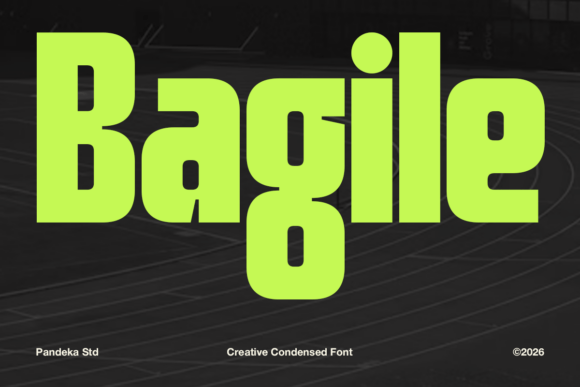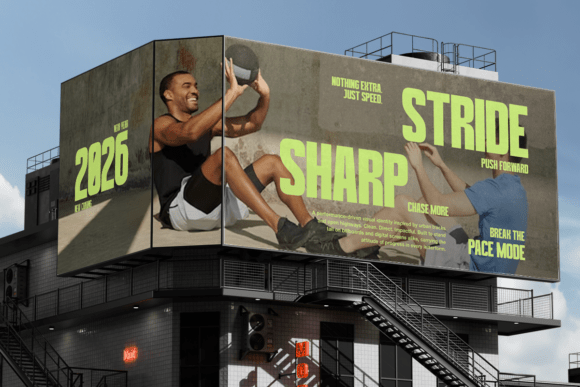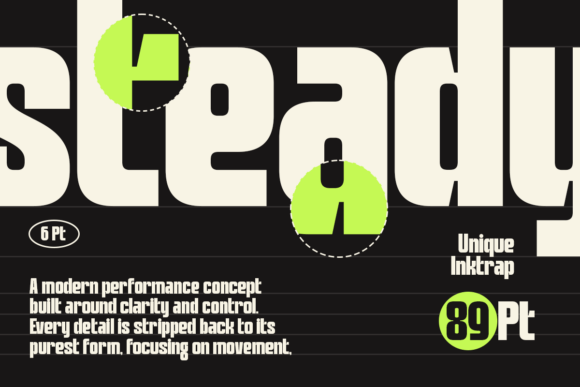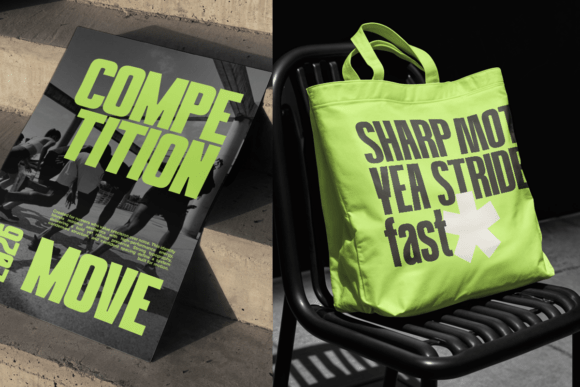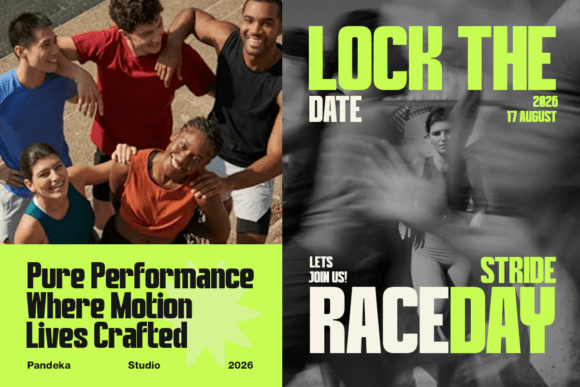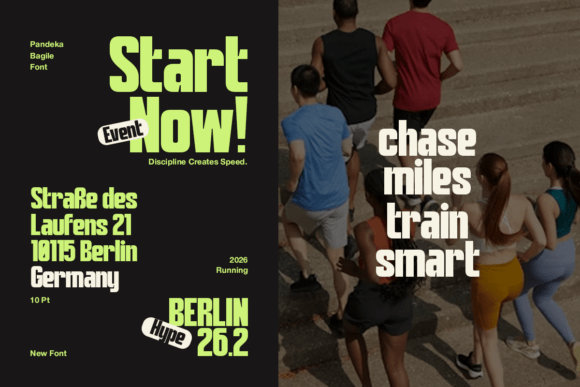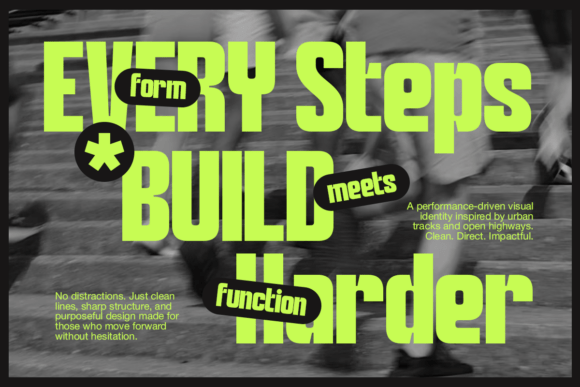
Unleashing the Power of Bagile Font
You’ve seen the electrifying graphics at a packed stadium, the fiery posters promoting a fitness challenge, or the bold logos of a gaming tournament. In each of these moments, a single element stands out – the typography. That’s where Bagile Font comes in, a game-changing condensed font designed to deliver a strong athletic impact. Born from the need for a dynamic visual language, Bagile Font is the perfect tool for sports branding, fitness campaigns, and competitive visual identities.
As a designer, you’re constantly seeking the right font to convey your message and evoke the desired emotions. Bagile Font is a valuable addition to your toolkit, offering a unique blend of boldness and energy that’s sure to leave a lasting impression. Whether you’re creating eye-catching posters, designing merchandise, or crafting engaging graphics, Bagile Font is the perfect companion to help you unleash your creativity and connect with your audience.
Bagile Font Key Features
- Unique Characteristics: Bagile Font features a unique blend of modern and traditional design elements, with a distinctive flair that sets it apart from other fonts.
- Font Style: Bagile Font comes in a range of styles, including Regular, Bold, Italic, and Bold Italic, allowing designers to add depth and variety to their work.
Bagile Font Review
As a designer, I recently had the opportunity to work with the Bagile Font, and I must say, it’s an interesting addition to the world of typography. ✨ Here are some of its strengths:
- The Bagile Font offers a unique blend of modern and vintage elements, making it perfect for projects that require a touch of nostalgia.
- Its extensive character set and language support make it a versatile choice for international clients.
- The font’s high x-height and vertical spacing make it highly legible, even at small font sizes.
However, like any font, the Bagile Font has its limitations: ⚠️
- The font’s bold and italic weights can feel a bit inconsistent in certain contexts, which may affect the overall visual flow of your design.
- The Bagile Font’s sans-serif feel can make it difficult to pair with more serif-based fonts, so you may need to be strategic in your font pairing choices.
Overall, I would say that the Bagile Font is a solid choice for designers looking to add some visual interest to their projects. While it may not be the most versatile font out there, it’s certainly worth considering for projects that require a unique touch.
To get the most out of Bagile Font, experiment with different font sizes, colors, and styles. Use it for creating bold headings, attention-grabbing titles, and custom icons. Bagile Font is also suitable for creating a consistent brand identity across various marketing materials.
- Creating eye-catching headings and titles
- Designing custom logos and icons
- Developing a consistent brand identity